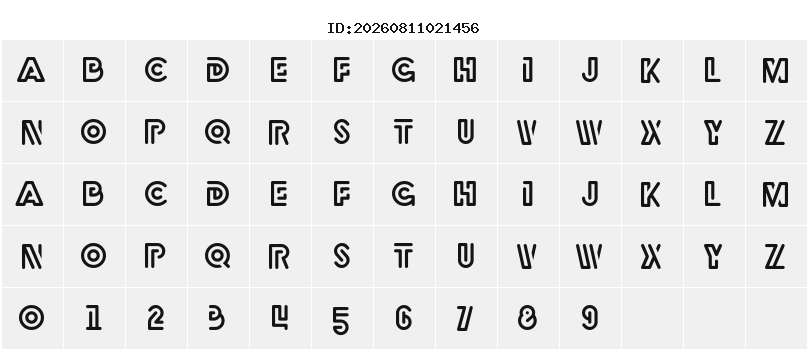
• Font Name: Rubber
• Full Font Name: Rubber
• Version: Version 1.00 February 17, 2014, initial release
• Designer: Levi Szekeres
• Description: Grid based headline display font
About Rubber.ttf
Rubber.ttf is a modern, elegant sans-serif font designed for ultimate readability and visual harmony. Perfect for branding, headlines, web design, and print materials.